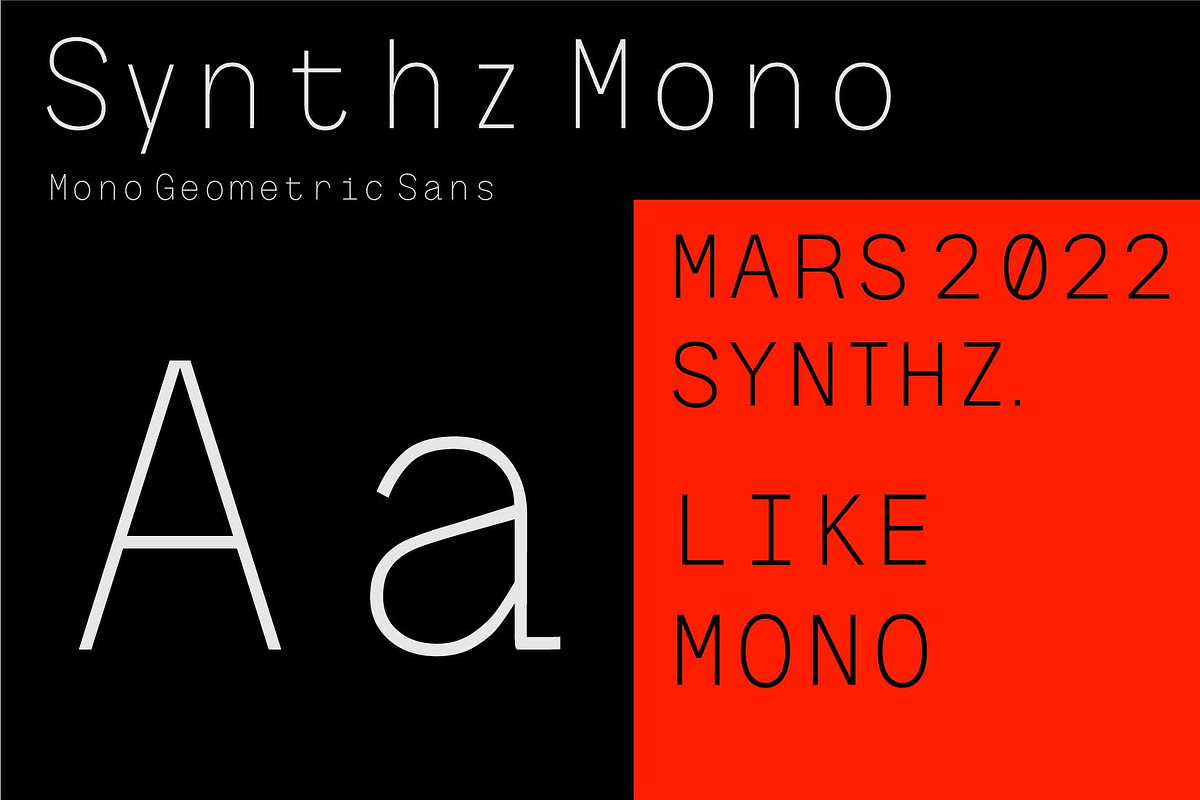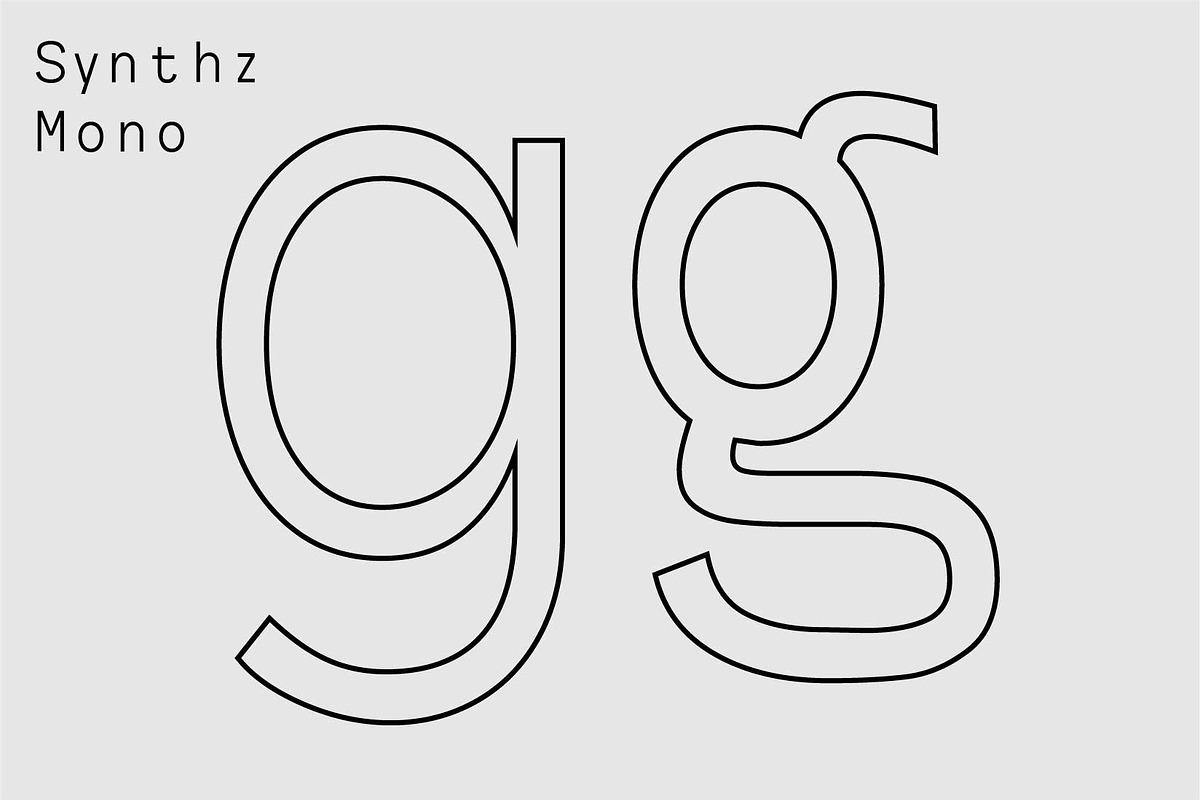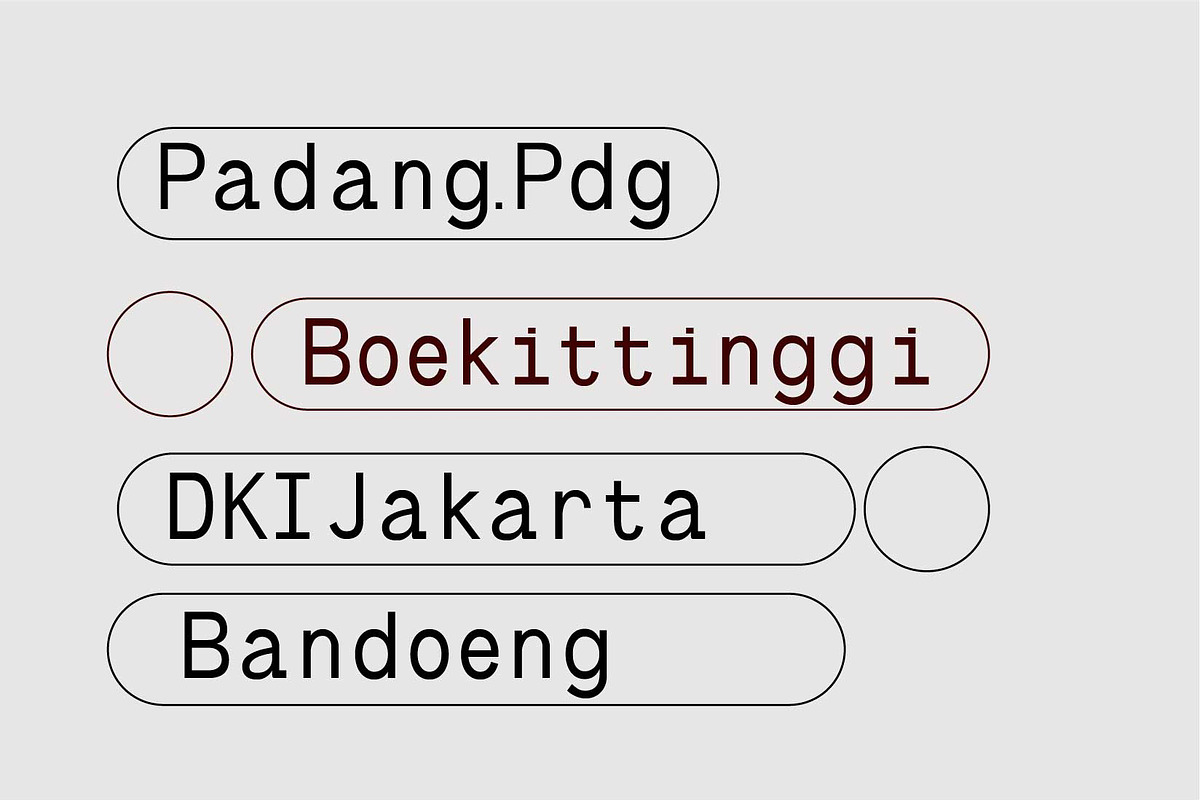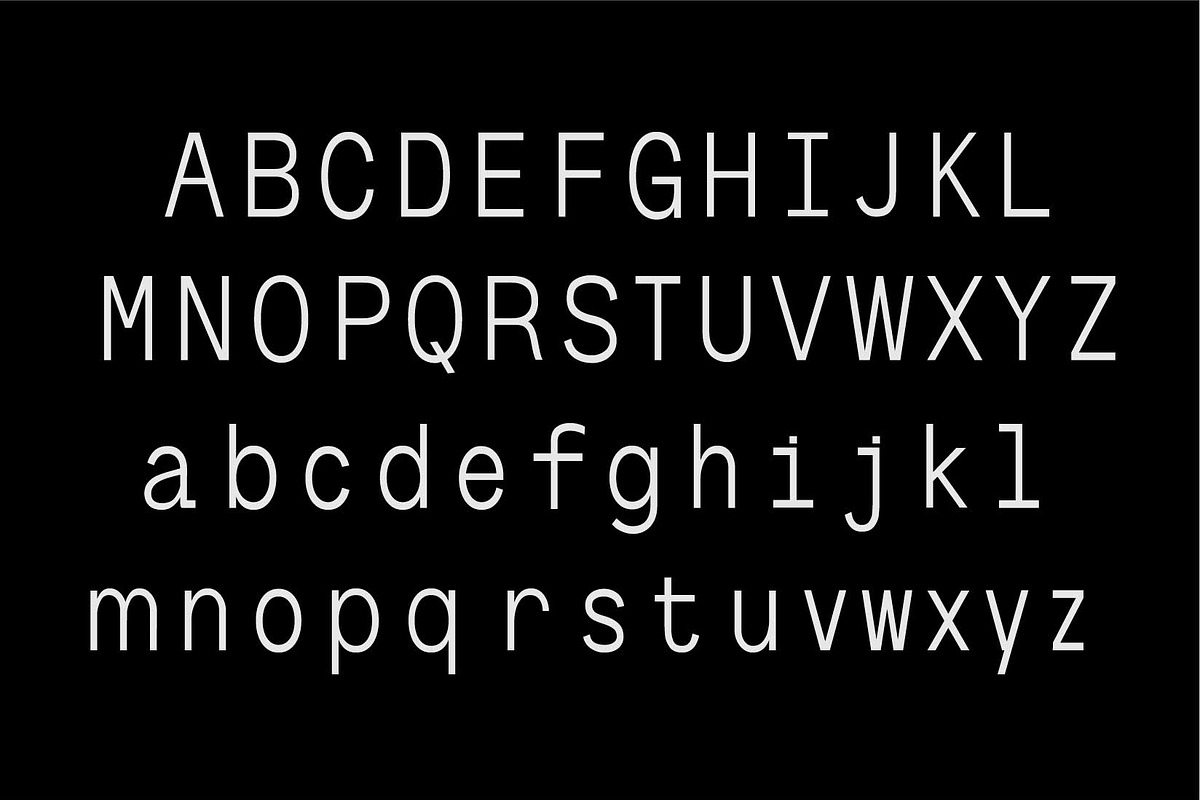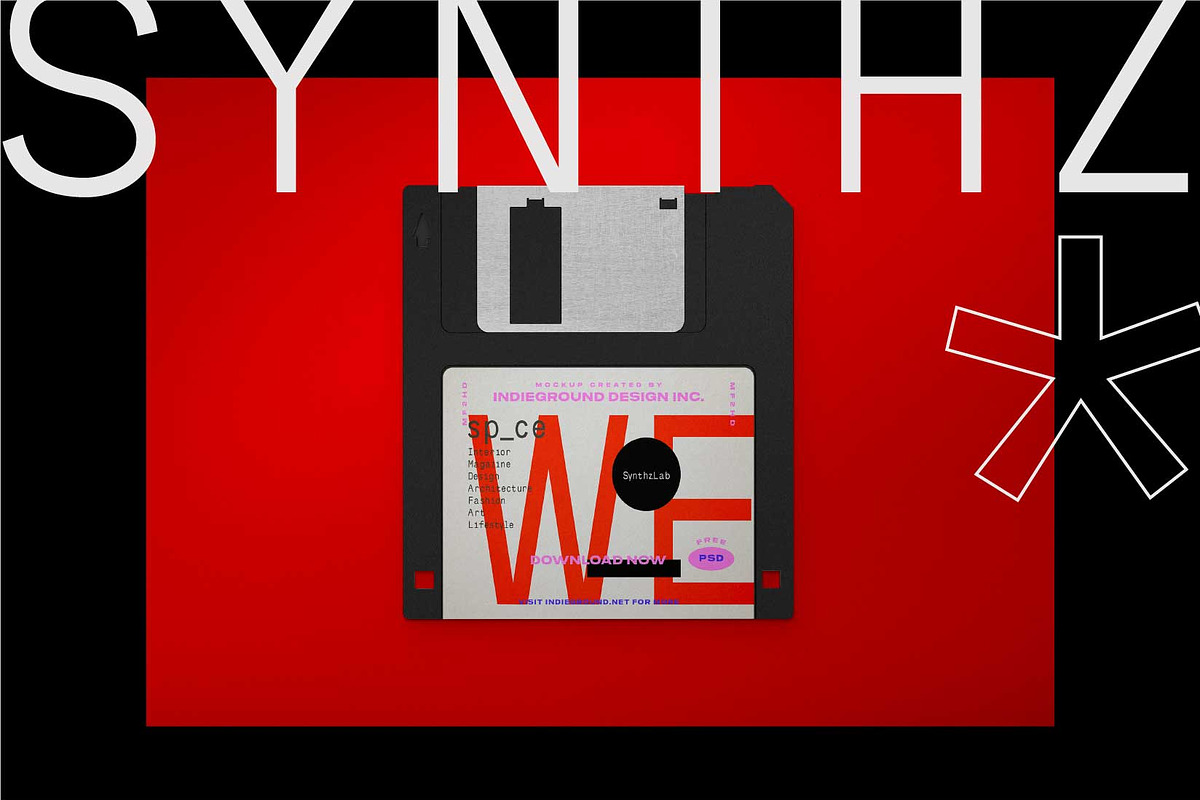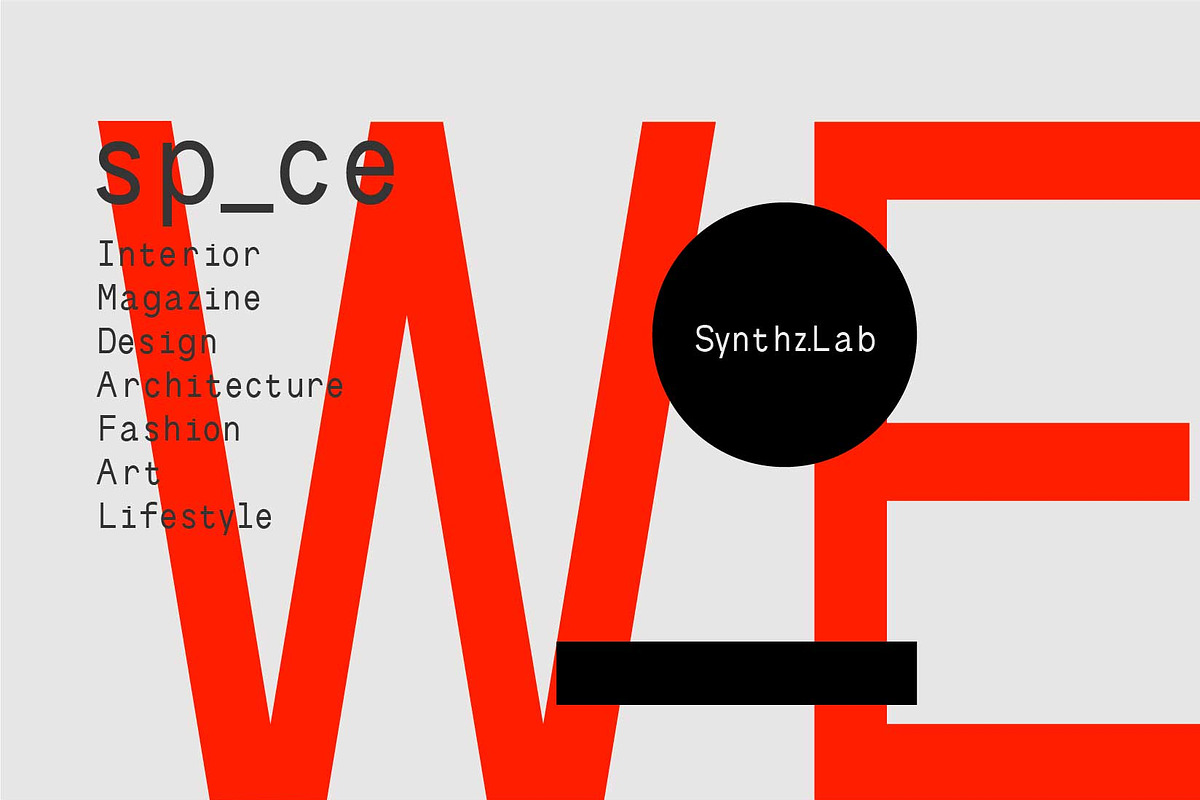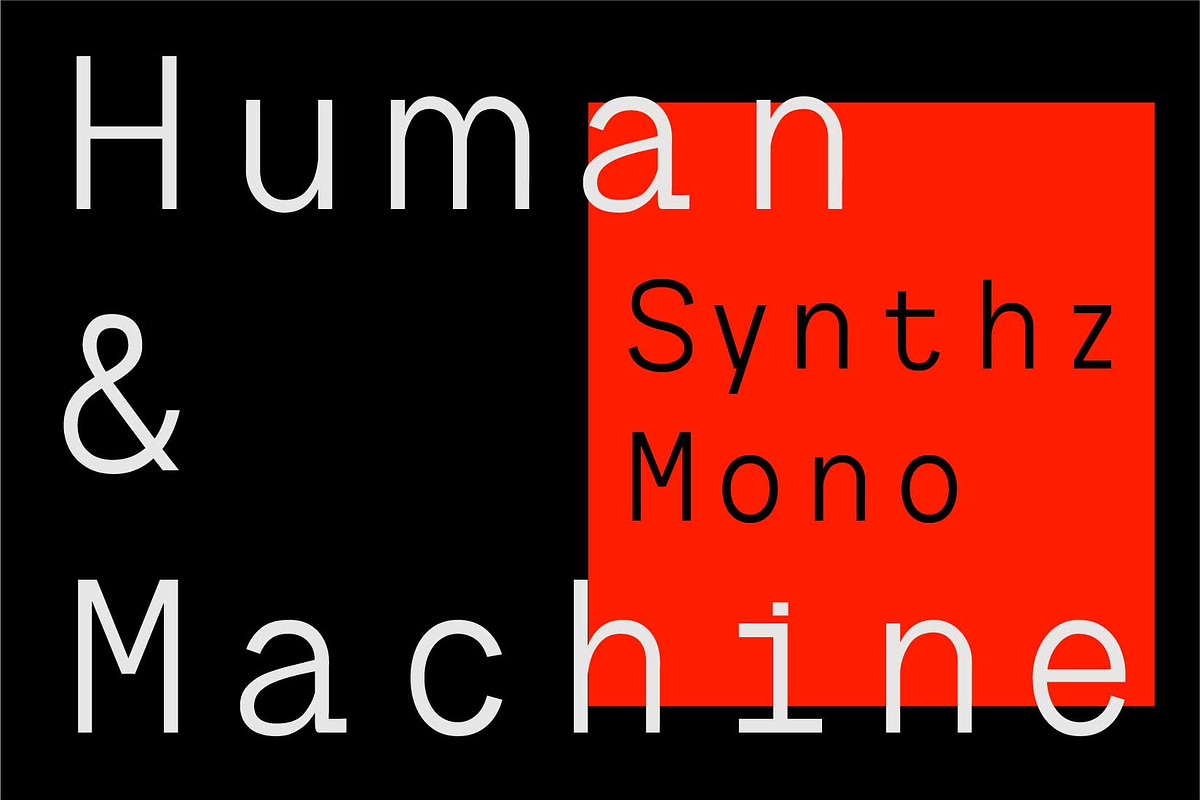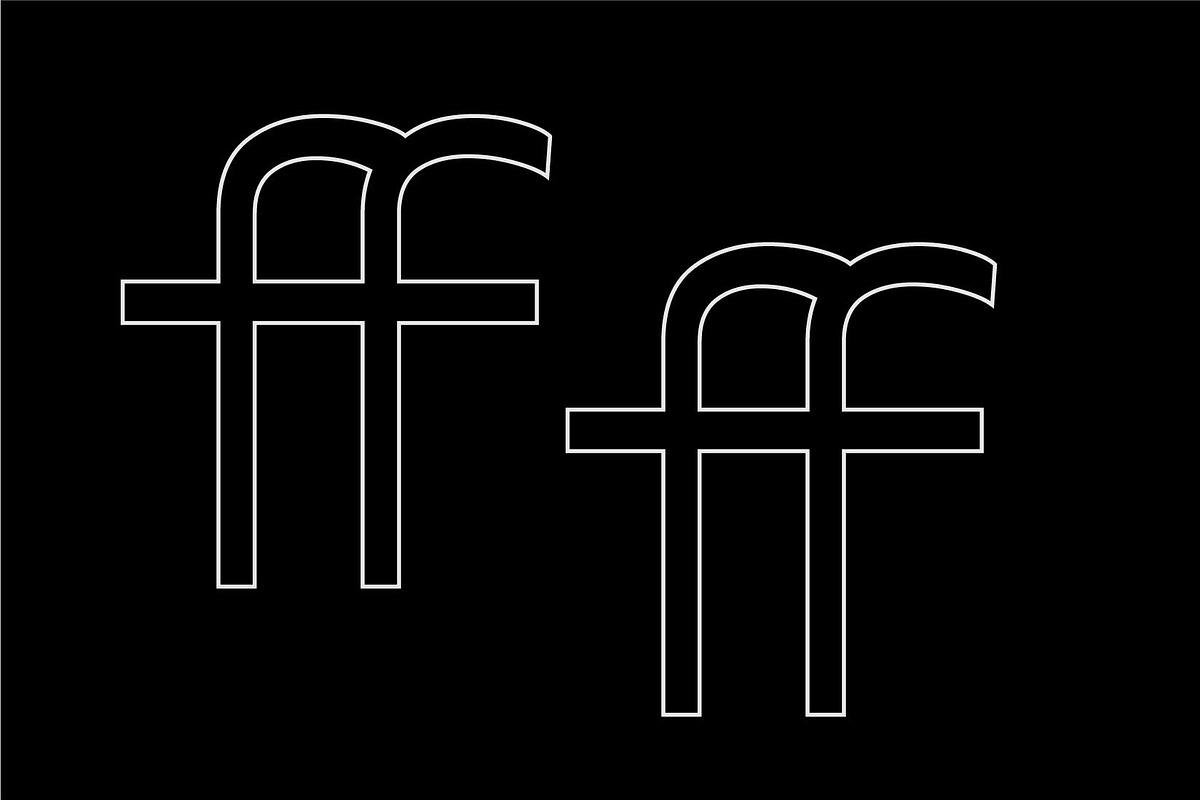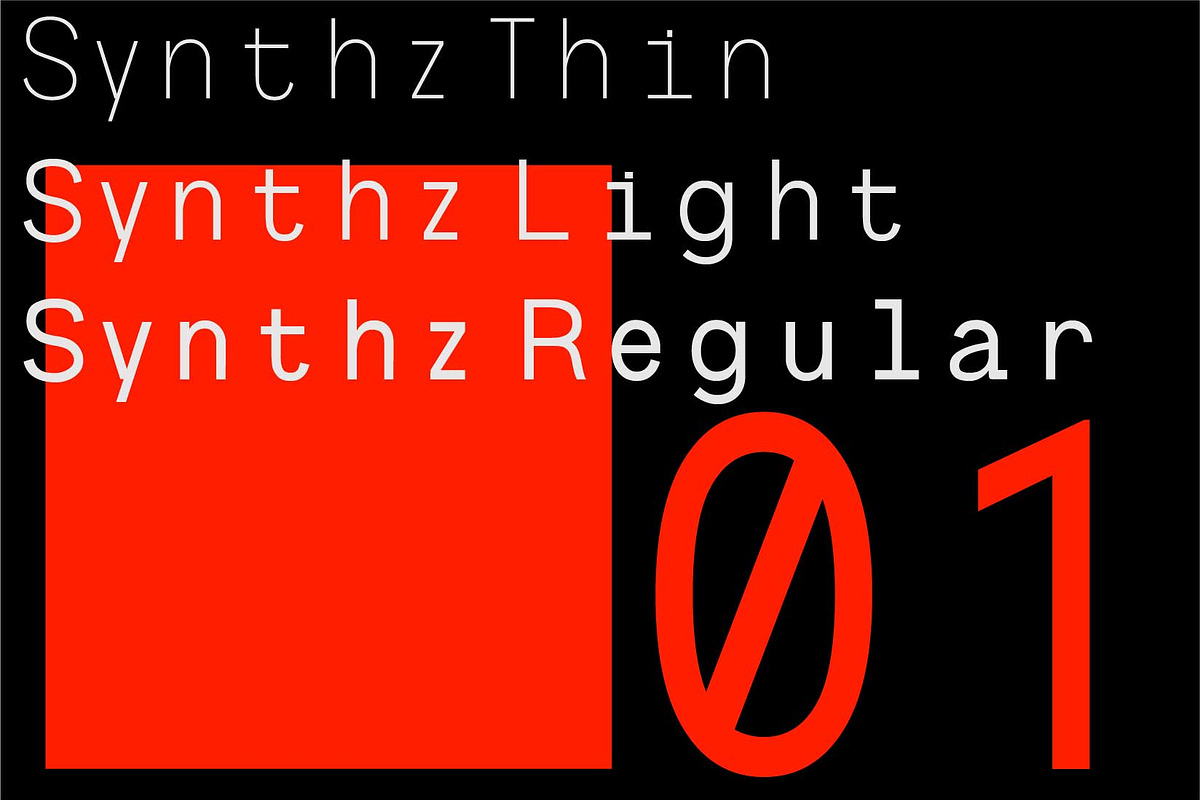
Synthz Mono
Synthz mono" is a mono space font with 4 dynamic shape variables. With these features, this font allows users to dynamically adjust the width and shape of characters depending on size, weight, slant, or other optical variations.
In graphic design or typography, Synthz mono fonts can provide greater flexibility in customizing the look and style of different typography. This font can also help create a clean, consistent look in designs that require the use of monospaced characters. Hopefully this information is useful for you.